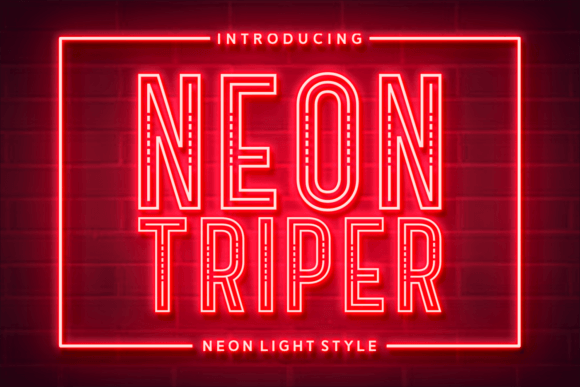
Neon Triper Font: Illuminate Your Designs with Dazzling Brilliance
Embark on a visual odyssey with Neon Triper, a decorative font that radiates boldness and luminosity. Designed to captivate and inspire, Neon Triper's striking neon-inspired letters are a beacon of creativity, beckoning you to explore a world of limitless possibilities.
Crafted with meticulous attention to detail, Neon Triper's sleek and contemporary design exudes an aura of sophistication, making it the perfect choice for those seeking to elevate their designs with a touch of futurism. Let your imagination run wild as you witness your words transformed into radiant beacons of light, commanding attention and captivating hearts.
Neon Triper's versatility extends beyond its striking visual appeal. Its adaptability shines through in its suitability for a wide range of design projects, from eye-catching advertisements and thought-provoking posters to dynamic digital media that dances with energy. Unleash your creativity and let Neon Triper illuminate your designs, leaving an indelible mark on your audience.
Experience the allure of Neon Triper's distinctive glow effect, a visual symphony that breathes life into your designs. Its luminescent aura will make your words shimmer and dance, capturing the attention of all who behold them. Prepare to witness your designs transcend the ordinary and enter a realm of brilliance, where your ideas take center stage and shine brighter than ever before.
With Neon Triper as your creative ally, you hold the power to transform mundane designs into extraordinary masterpieces. Embrace the brilliance, ignite your imagination, and let Neon Triper illuminate your path to design excellence.